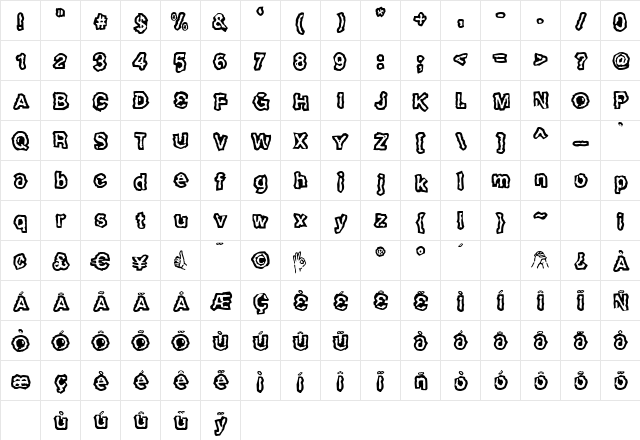
Complete SlackhappyOutline Medium glyph index. Displaying only characters natively supported by SlackhappyOutline Medium font.
SlackhappyOutline is built around its visual character rather than neutral utility - its distinctive forms are designed to make an impression at display sizes.
Font Pairing: Pair with a clean neutral sans-serif for body copy to let SlackhappyOutline's character lead without overwhelming the composition.
Pro Tip: Use SlackhappyOutline exclusively at display sizes - it was designed to be seen, not read at length. Let a neutral companion handle body copy.